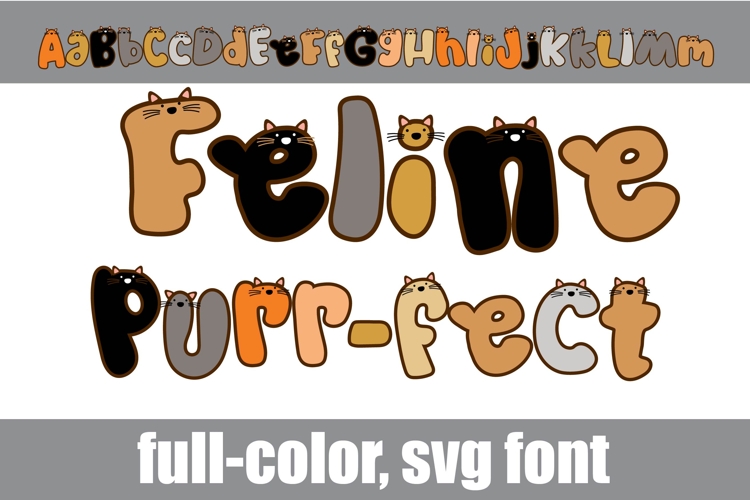
Feline Purr-Fect Color Font
This full-color, whimsical font is a fun sans serif with cat-like features throughout. There is an alt case with additional colors of all the letters you can access through your system's character maps.